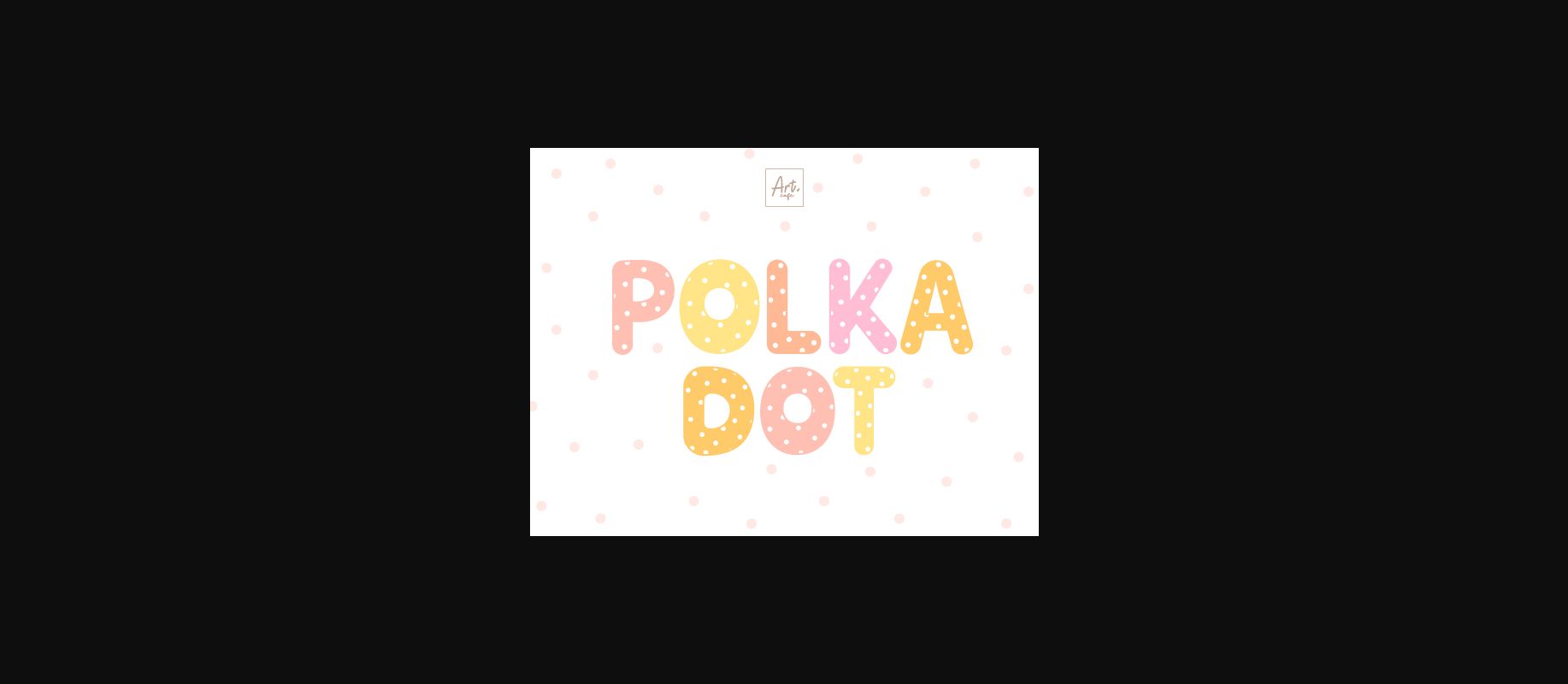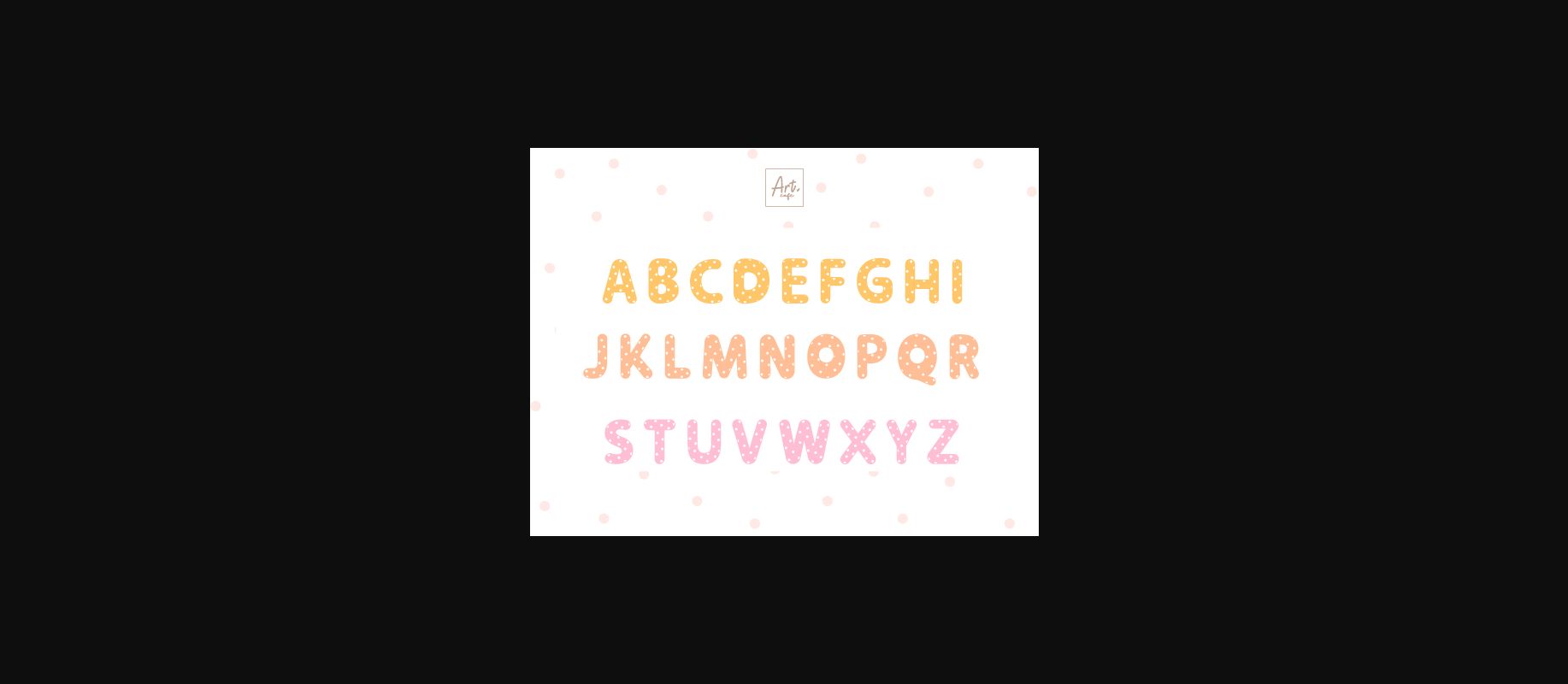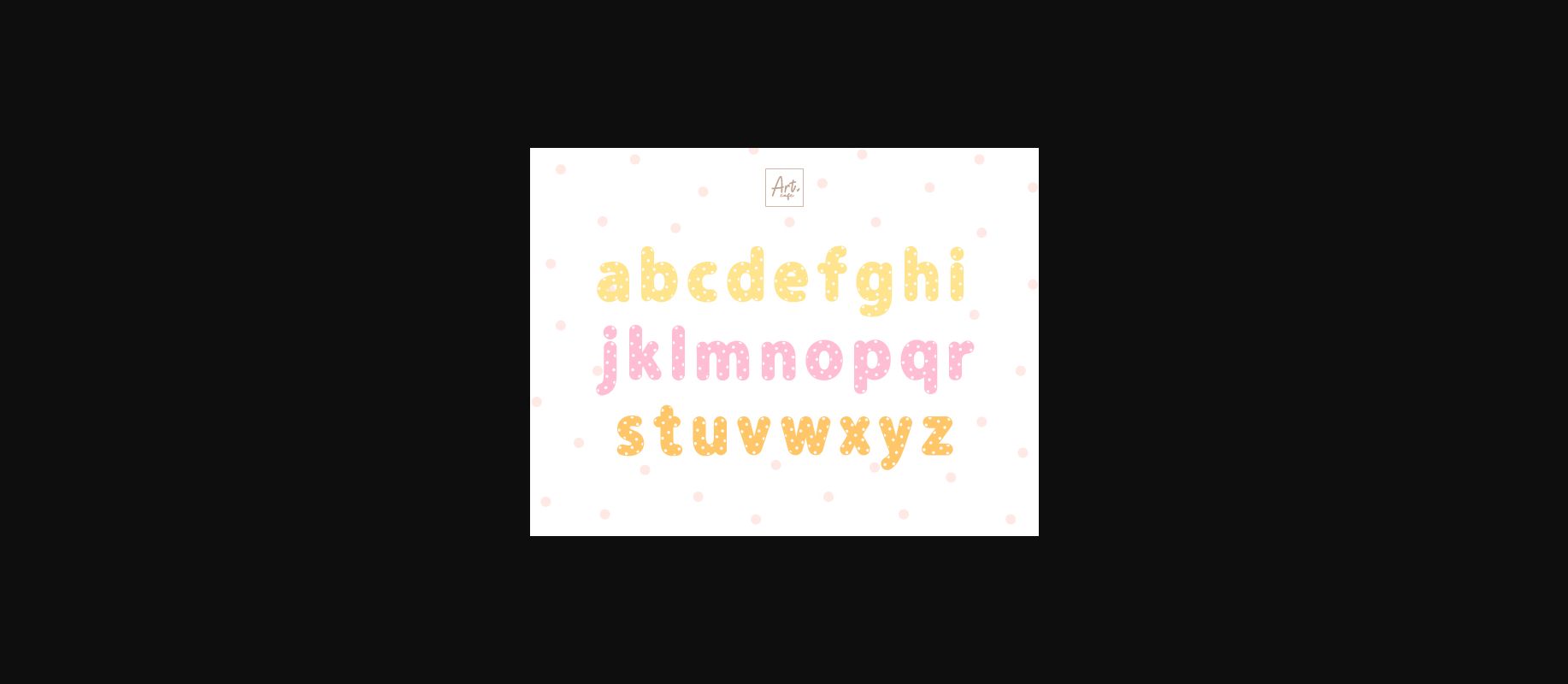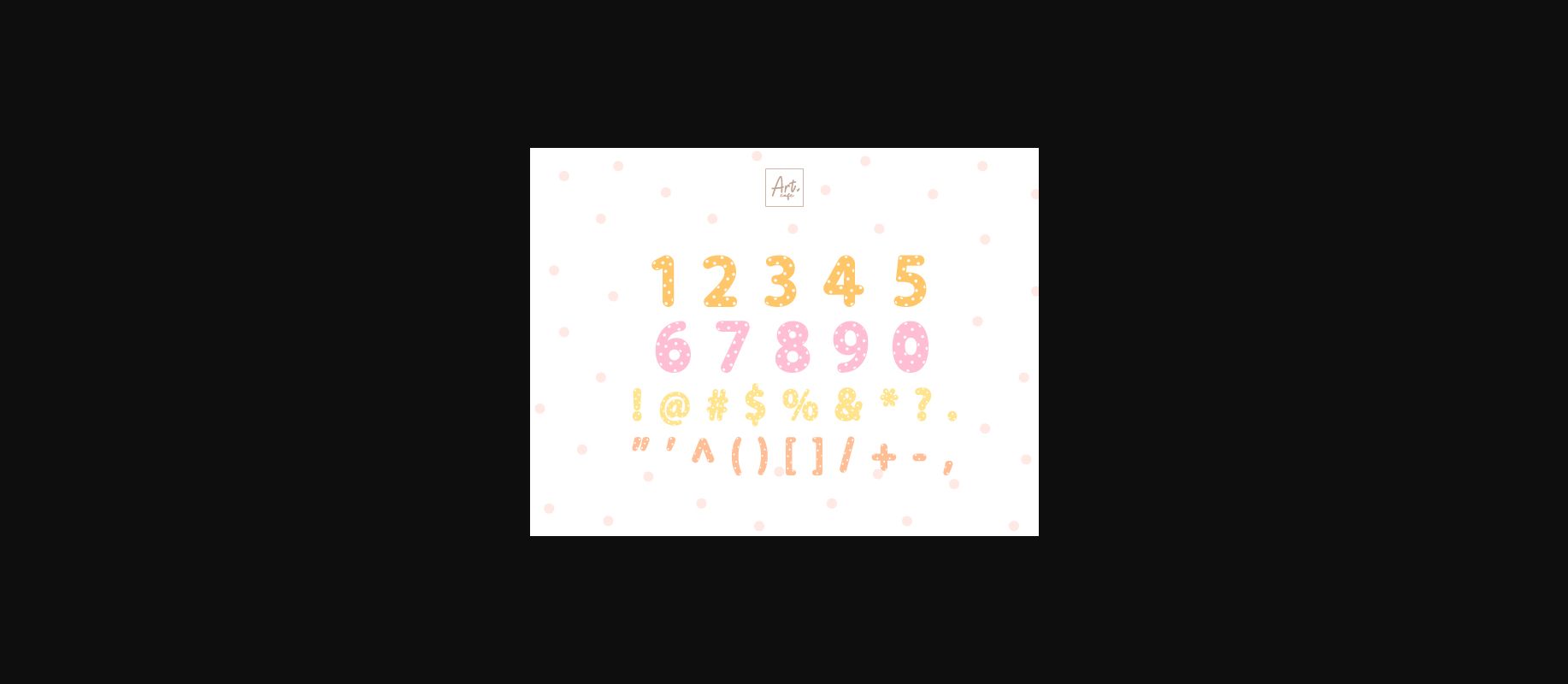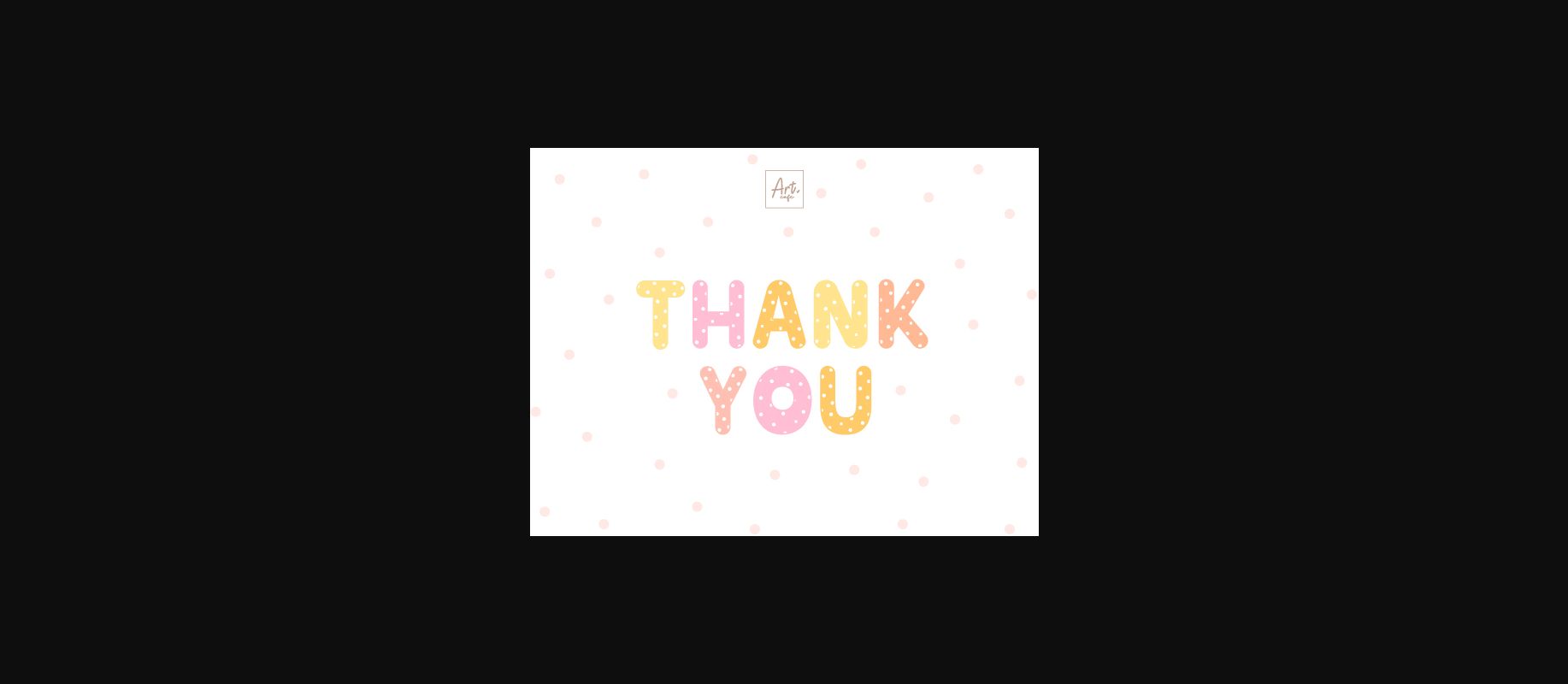
Polka Dot Font
About Polka Dot Font
Introducing Polka Dot – a charmingly adorable and fun font that’s perfect for creative projects designed with the little ones in mind. Showcasing a bold personality, Polka Dot supports every character in the English language, rendering it an excellent choice for a diverse range of display typography. Its versatility shines across an array of designs from striking posters to vibrant t-shirts, heartwarming mugs to delightful children’s projects. Be it elevating your planners, adding a touch of whimsy to stickers, or lending a creative spin to home decor, unleash your creativity with Polka Dot. Prep up for designing boldly, playfully, and imaginatively.